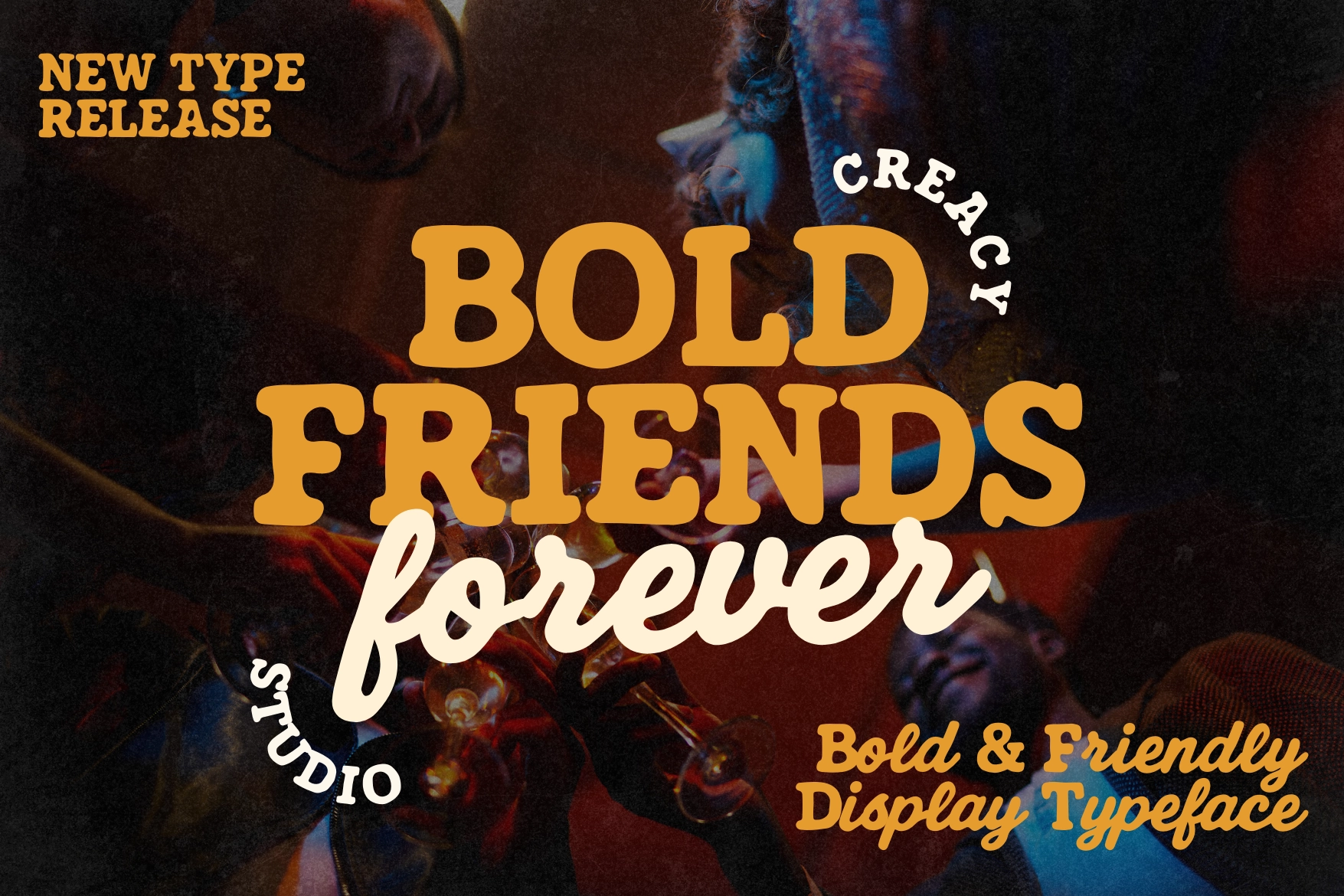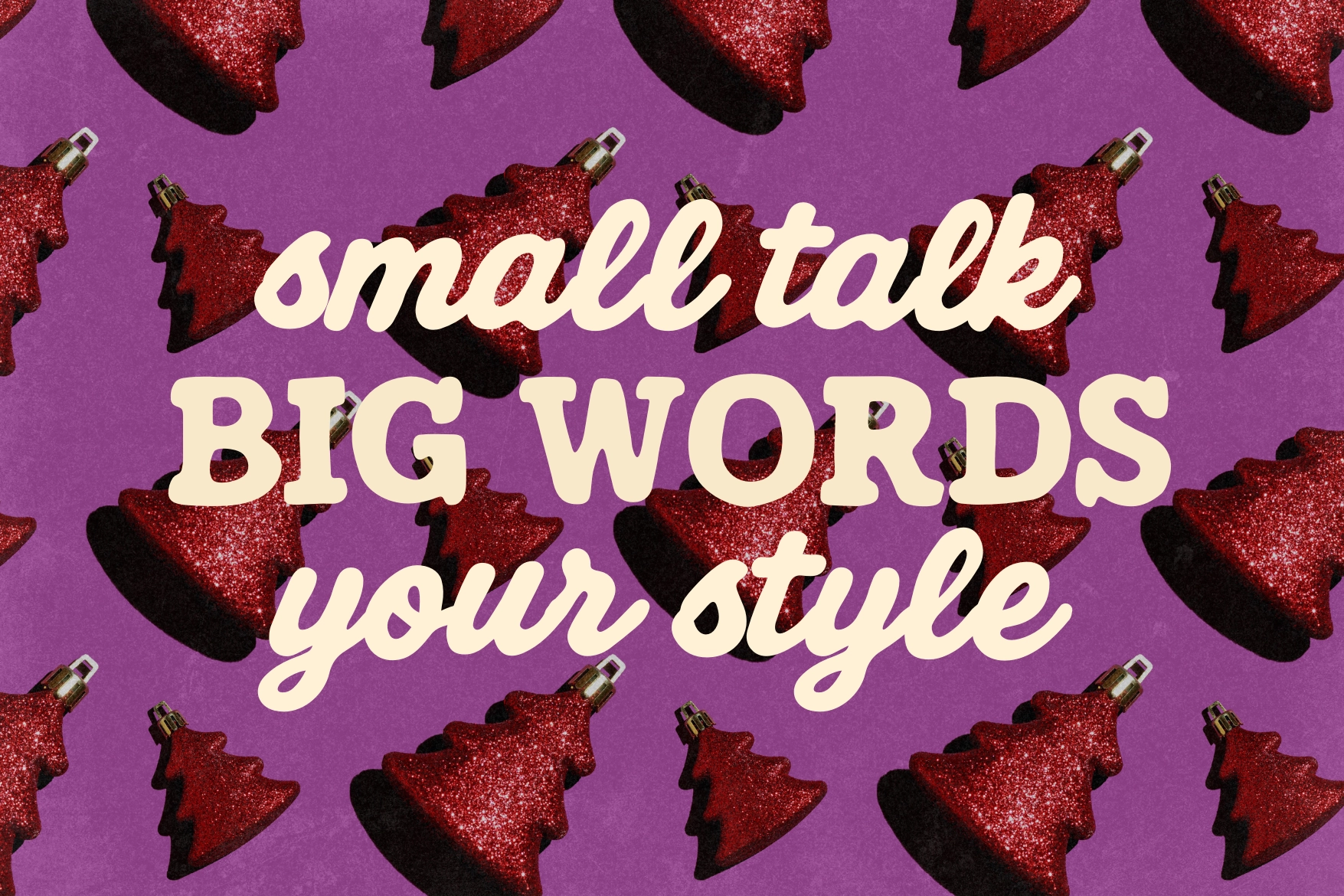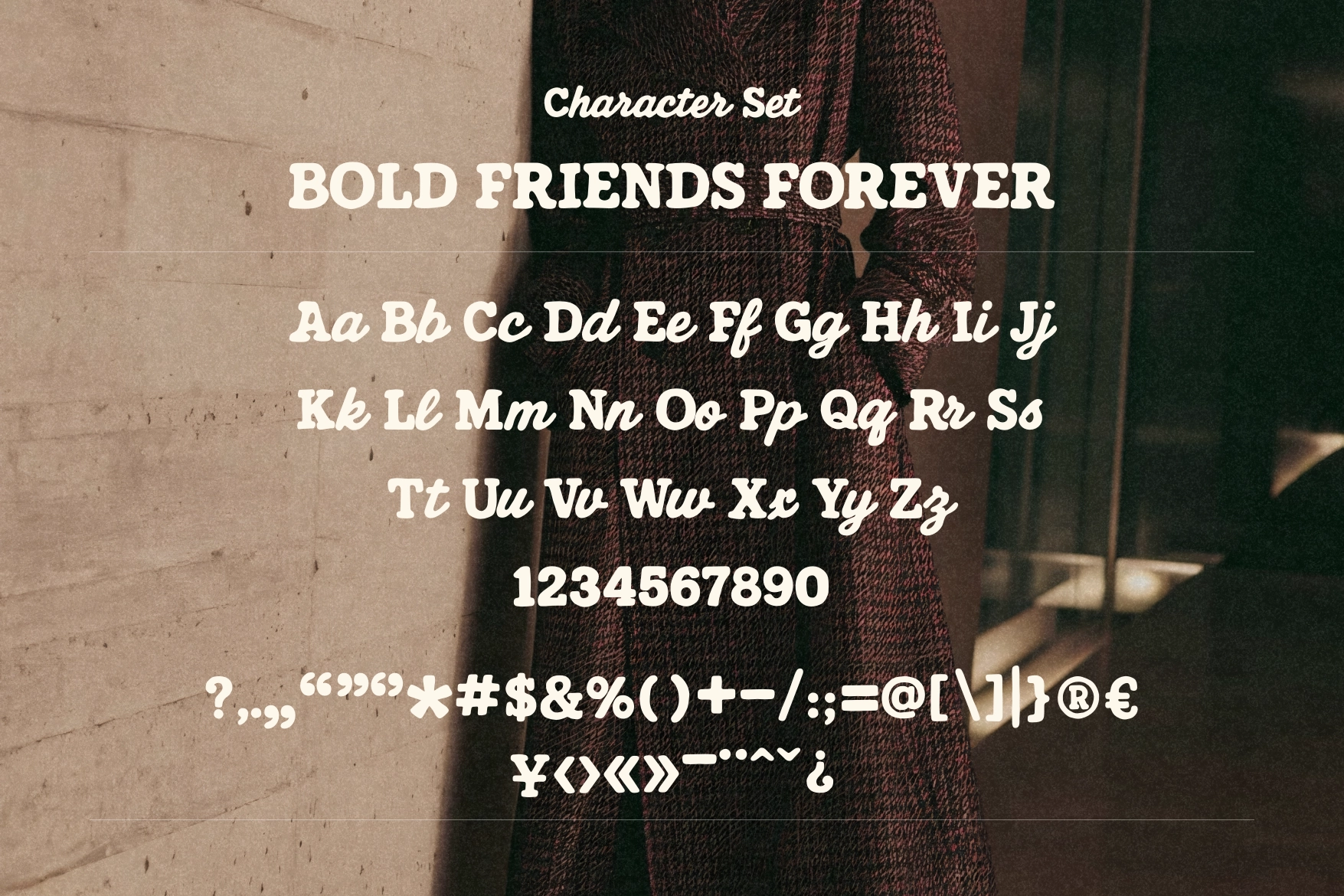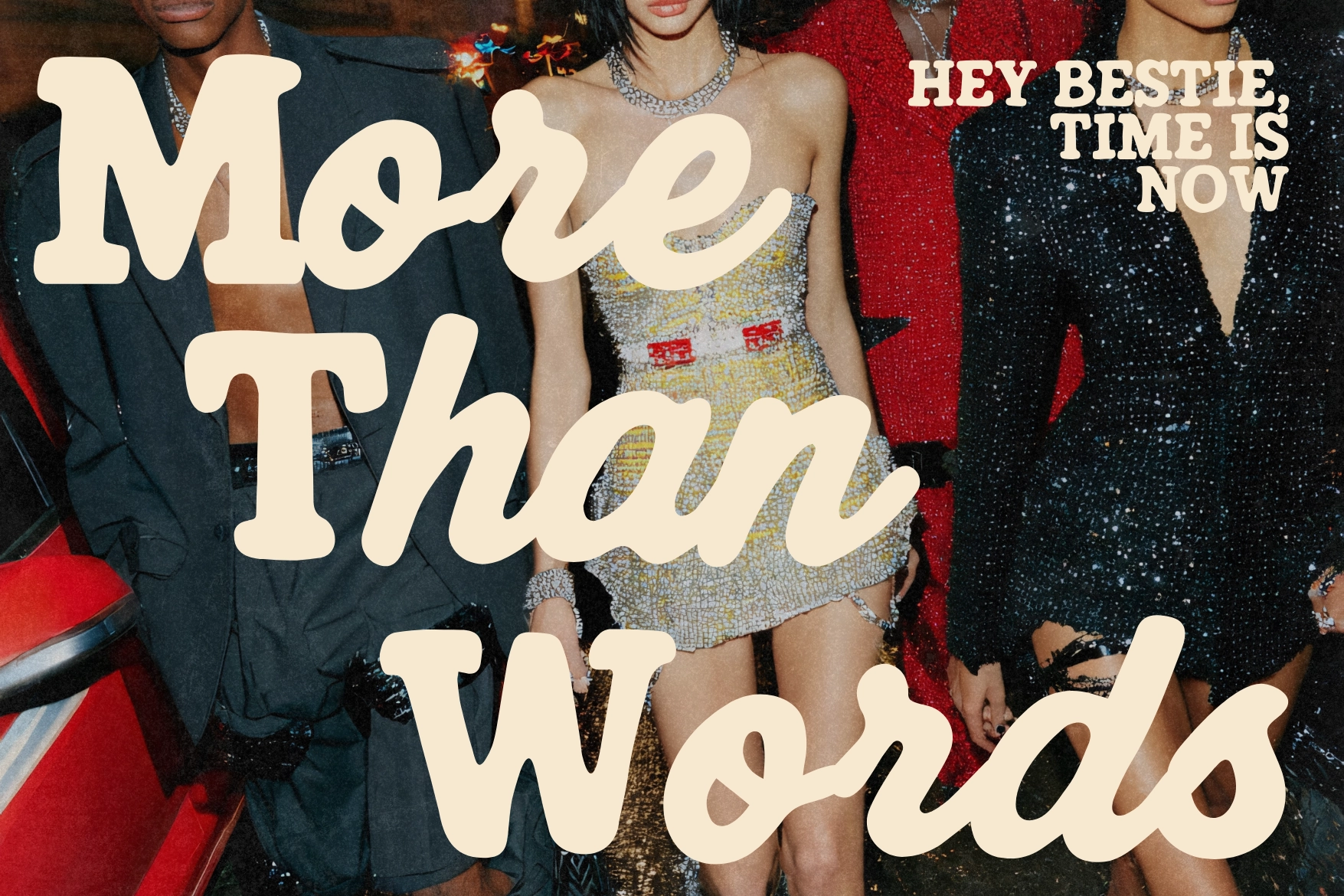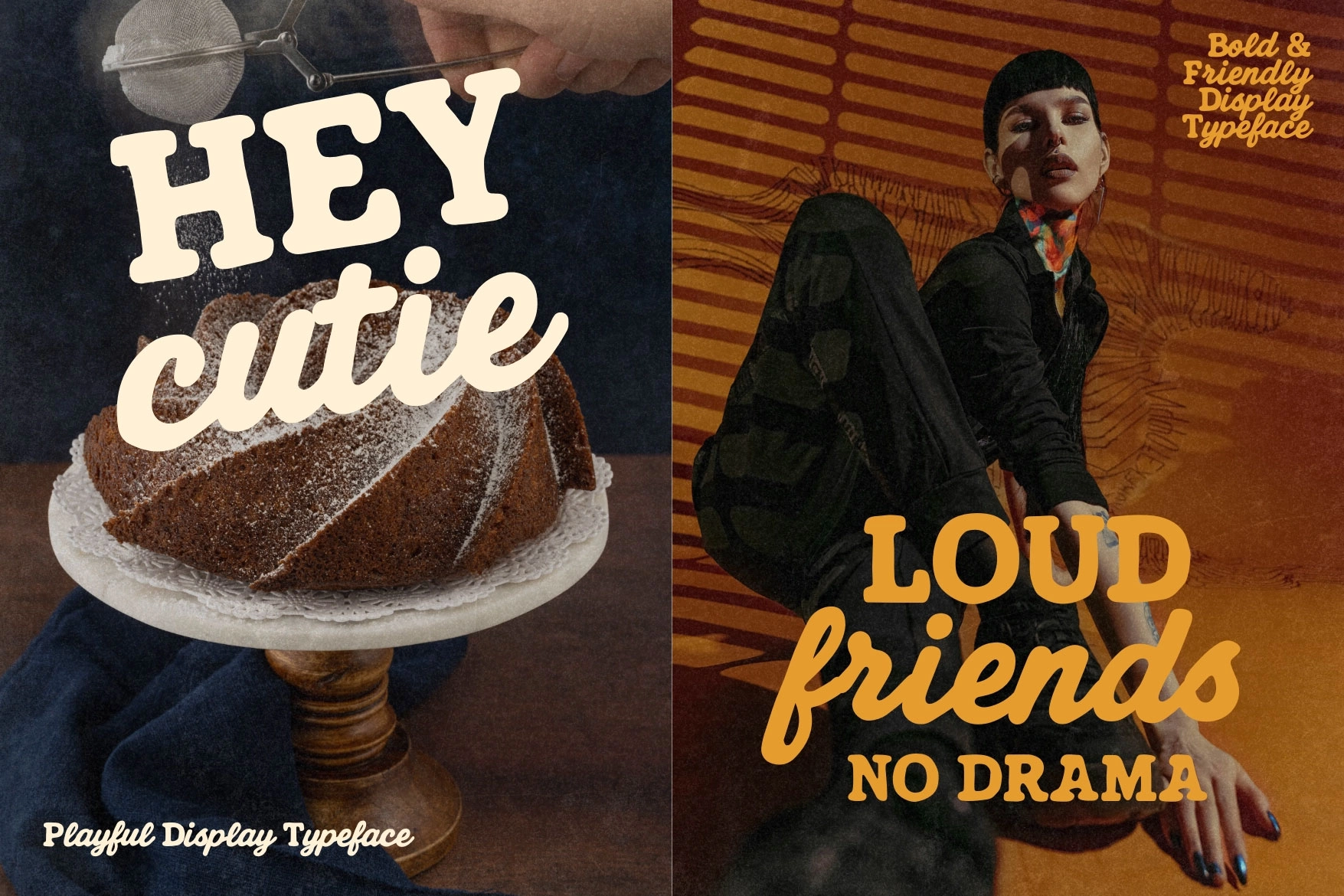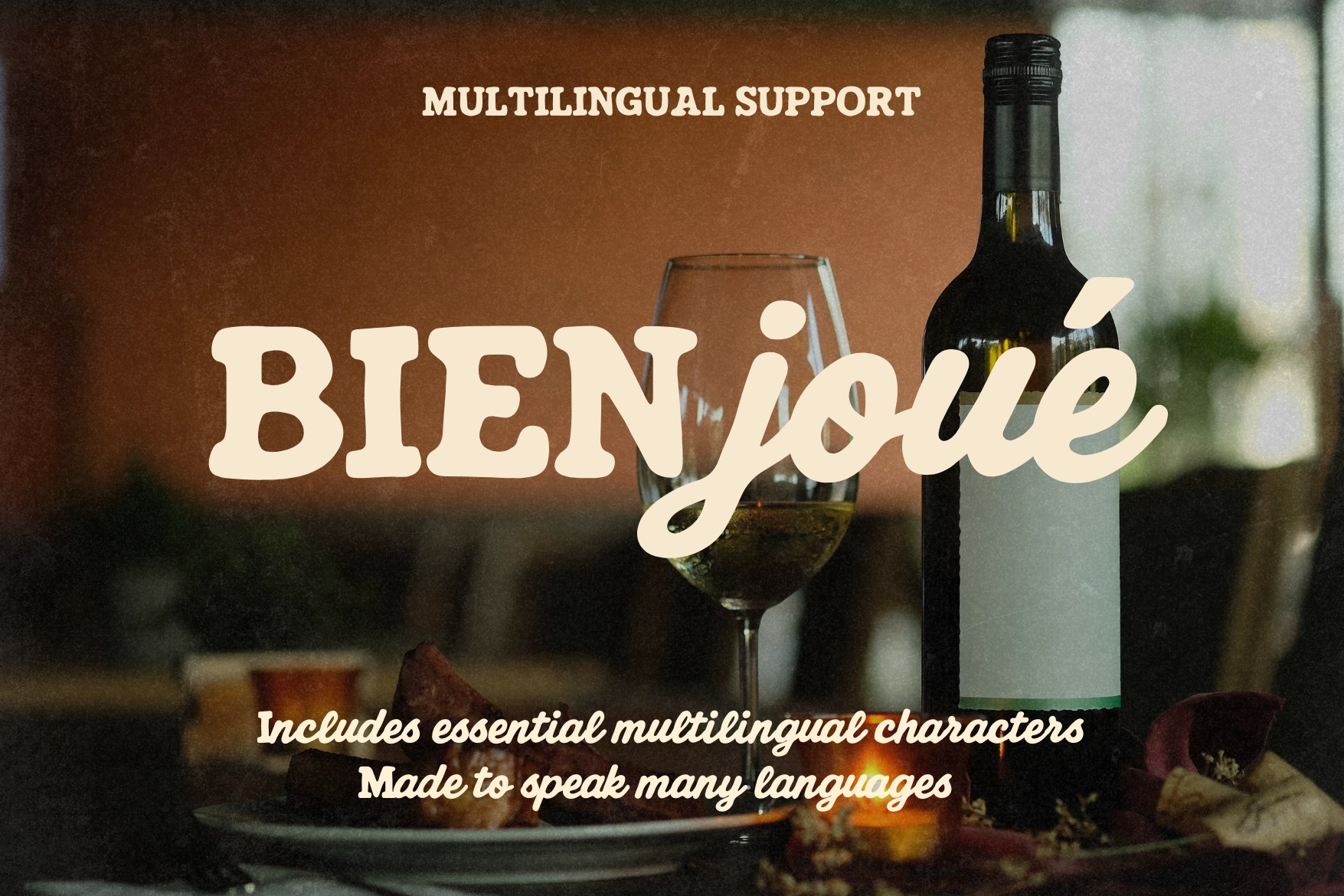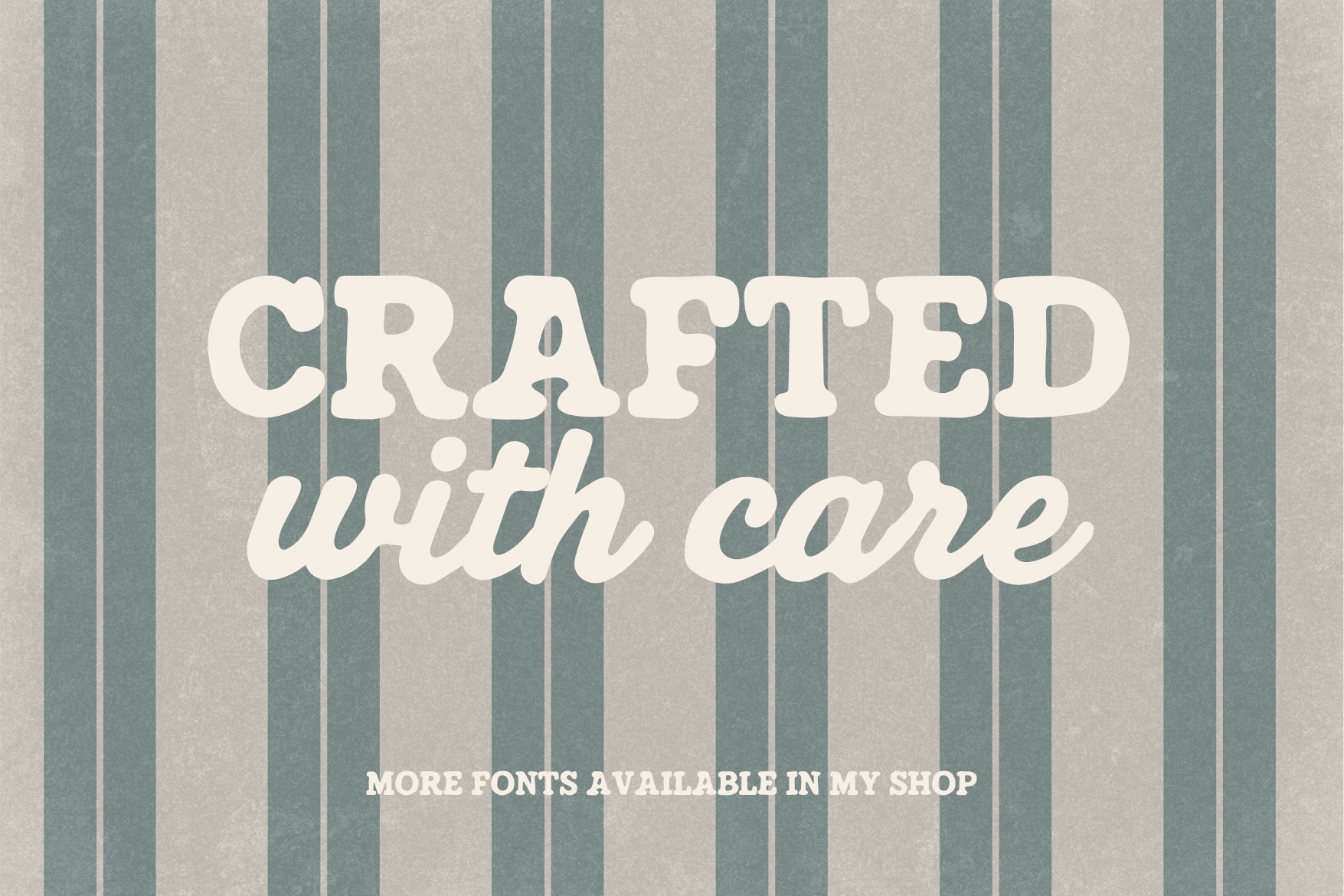
Bold Friends Forever Playful Font
Bold Friends Forever
Bold Friends Forever is a bold and friendly display typeface with a playful vintage soul. Designed to bring warmth and personality into your designs, this font combines chunky serif letterforms with smooth handwritten script styles, creating a strong yet approachable look.
Perfect for standout headlines and expressive branding, Bold Friends Forever helps your message feel confident, human, and memorable.
- Uppercase & lowercase characters
- Numbers & punctuation
- Essential multilingual support
- Bold, clean, and well-balanced letterforms